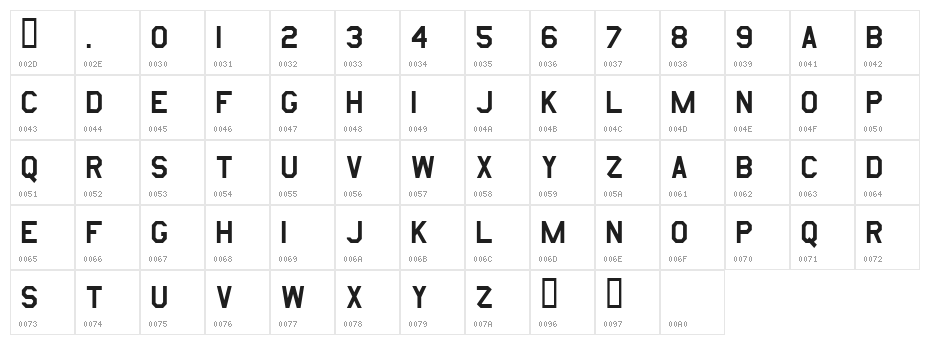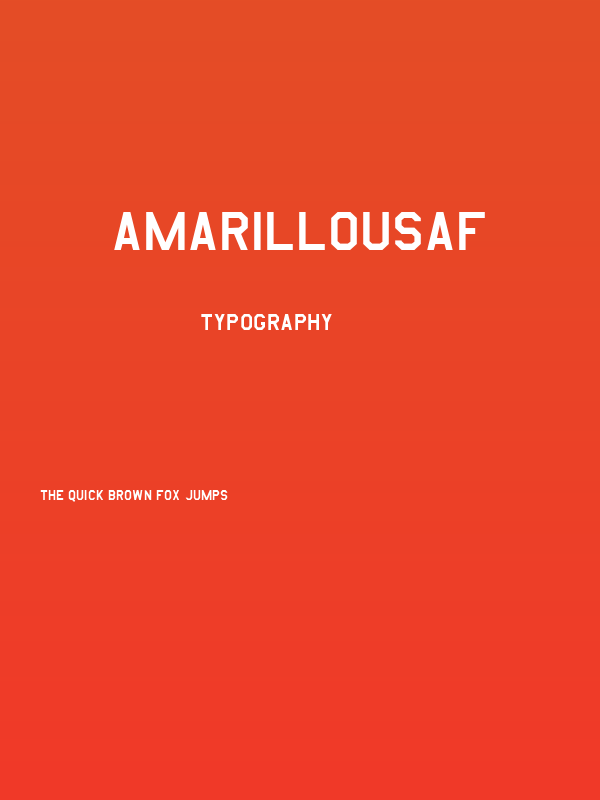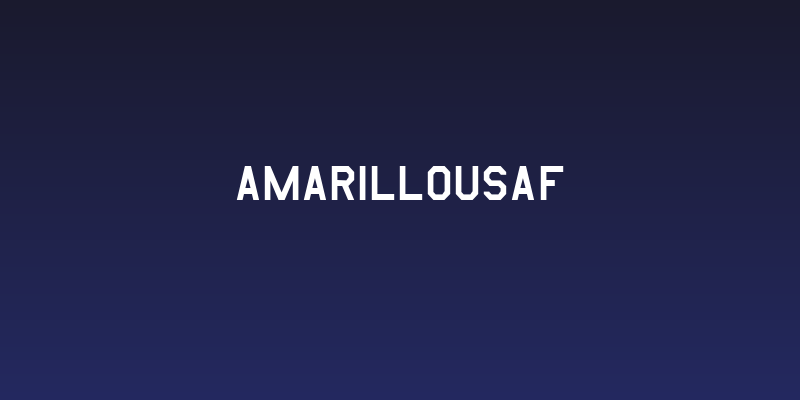
AmarilloUSAF Font
AmarilloUSAF Description
This font features a bold, geometric design with a strong, angular appearance. The characters are constructed with straight lines and sharp angles, giving it a modern and industrial feel. The uppercase letters are uniform in height, while the numerals maintain a consistent width, ensuring readability and balance. The font's design is reminiscent of military or industrial signage, with a utilitarian aesthetic that emphasizes clarity and impact. The spacing between characters is tight, contributing to its compact and efficient look.
| Use Case | Headlines, Logos, Signage |
| Proposed Projects | Ideal for military-themed designs, industrial branding, signage, and posters requiring a strong, impactful presence. |